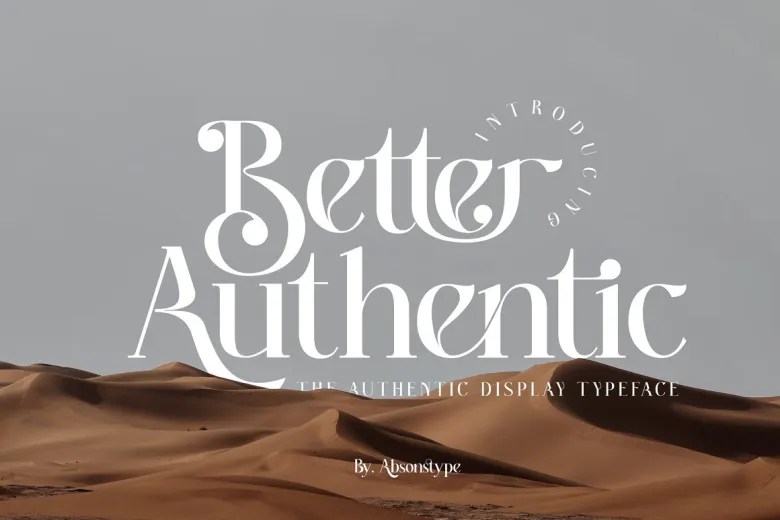
Better Authentic Font
Better Authentic Font is an elegant serif typeface that offers a harmonious blend of uppercase and lowercase characters, creating an ideal balance for a smooth and enjoyable reading experience. This font stands out with its sophisticated ligatures and alternate styles, making it an excellent choice for a variety of design projects, including posters, headlines, logos, packaging, and T-shirts.